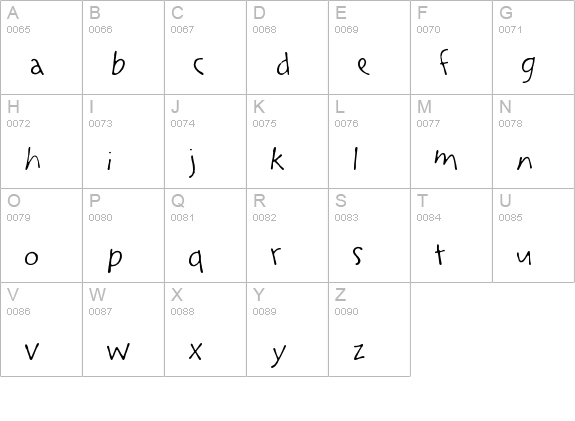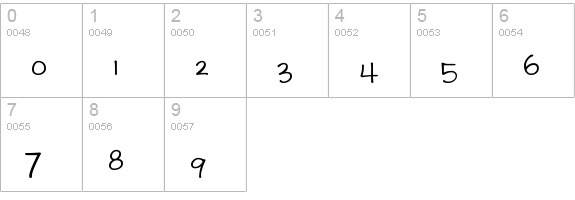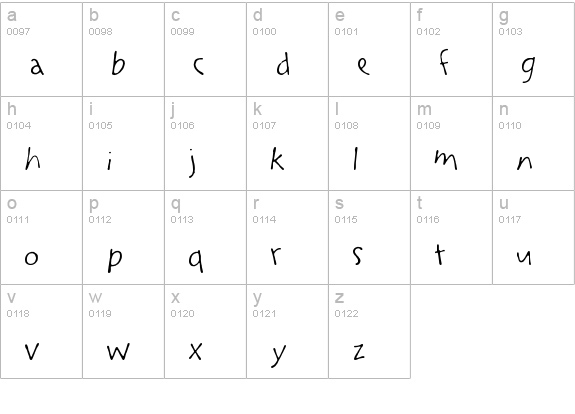
Doodolonomy Fred Font Details
Doodolonomy Fred font is a whimsical and playful typeface that exudes a sense of fun and creativity. With its quirky shapes and unique letterforms, this font is perfect for adding a touch of charm to any project. Whether you're designing greeting cards, posters, or branding materials, Doodolonomy Fred is sure to make a statement. The best part? Doodolonomy Fred is available for free download at FontsMarket.com, making it easily accessible to anyone looking to add a pop of personality to their designs. Don't miss out on this delightful font that is sure to bring joy to your creative endeavors.